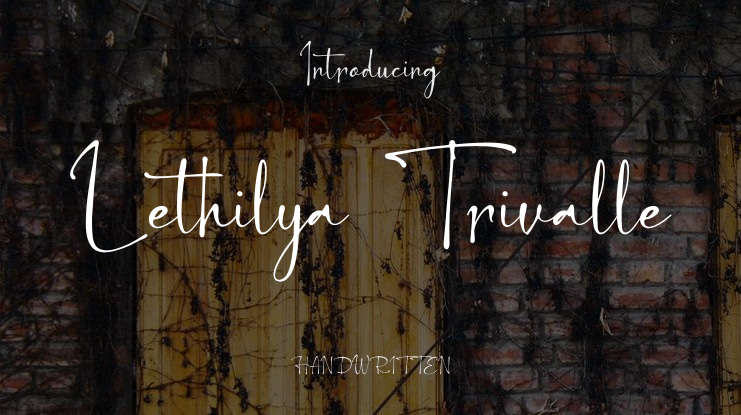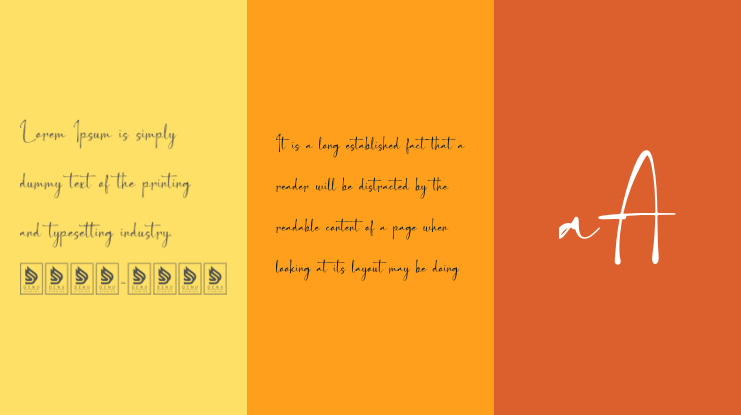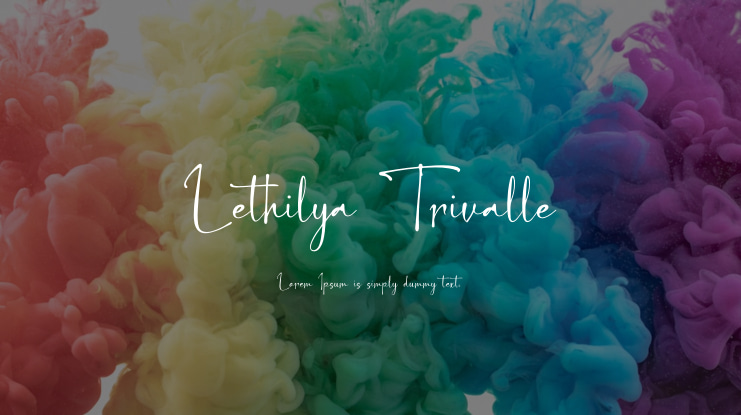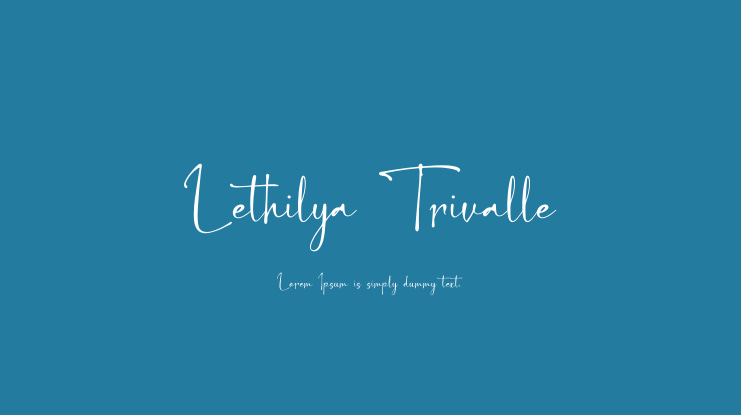
Lethilya Trivalle | Casual Chic Font is suitable for any projects such as: logos, branding projects, homeware designs, product packaging, mugs, quotes, posters, shopping bags, t-shirts, book covers, name card, invitation cards, greeting cards, label, photography, watermark, special events, and all your other lovely projects that need a Casual Chic Font taste.